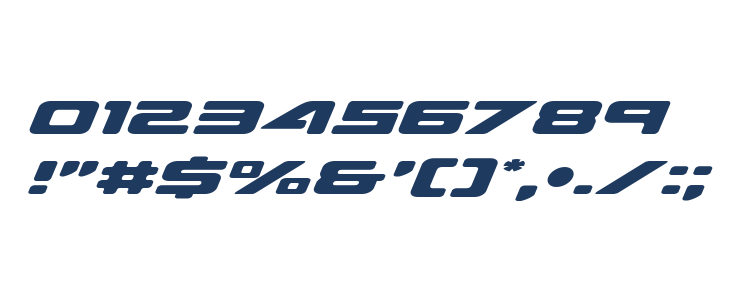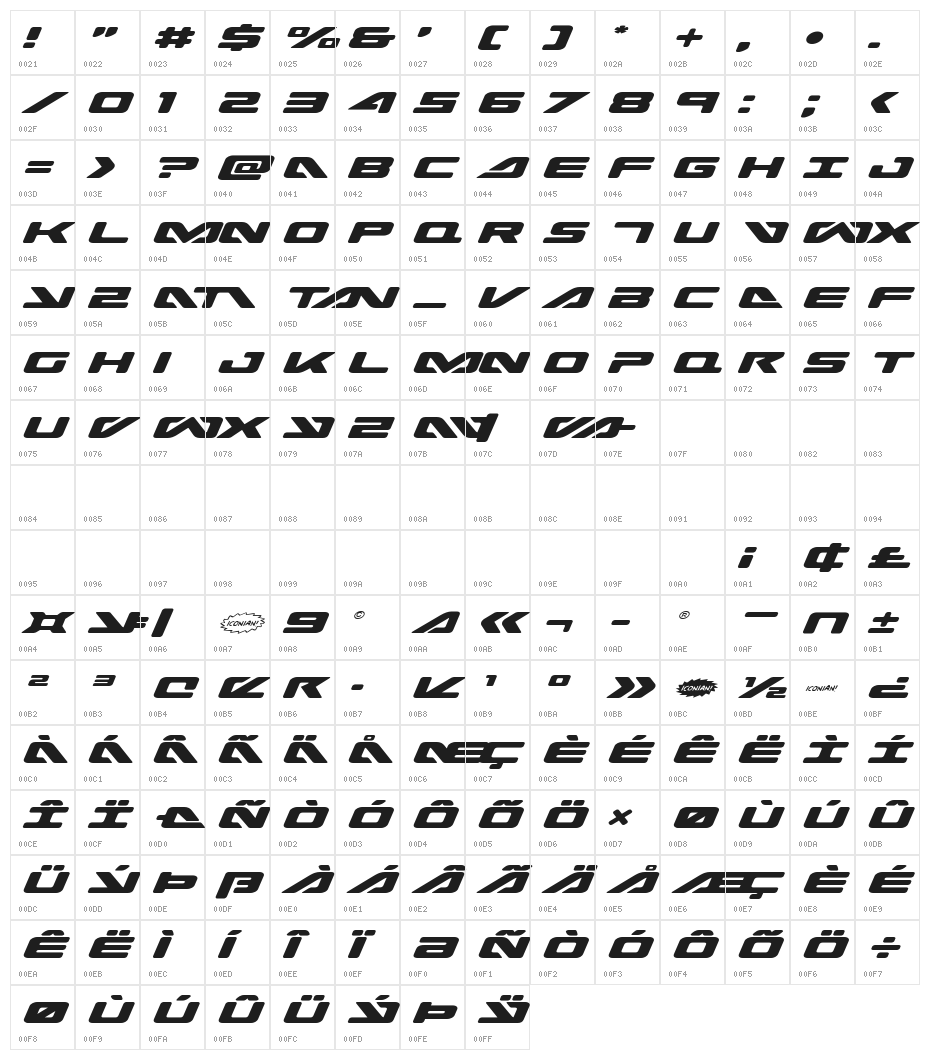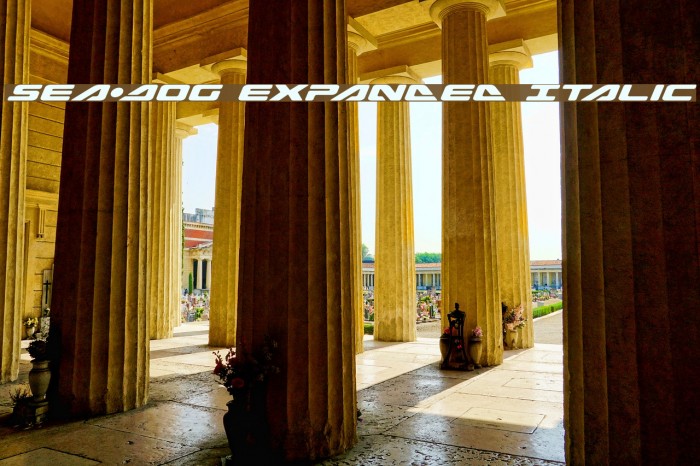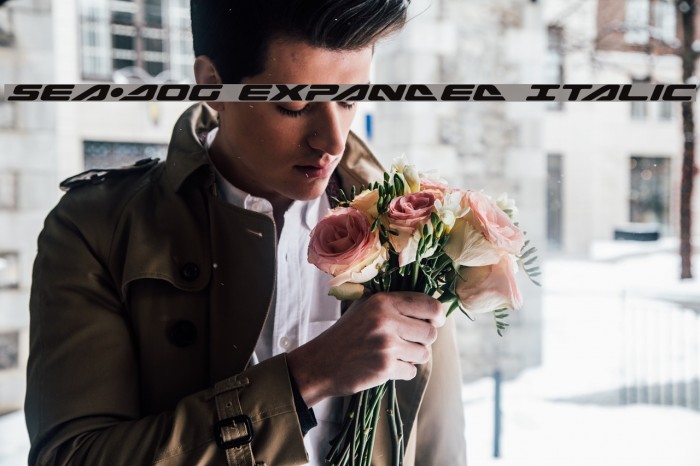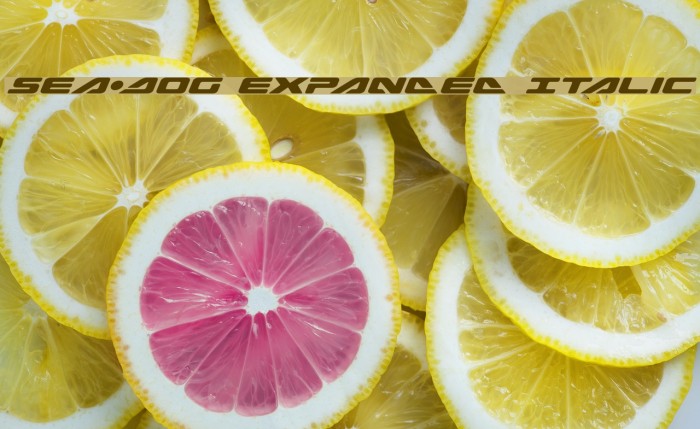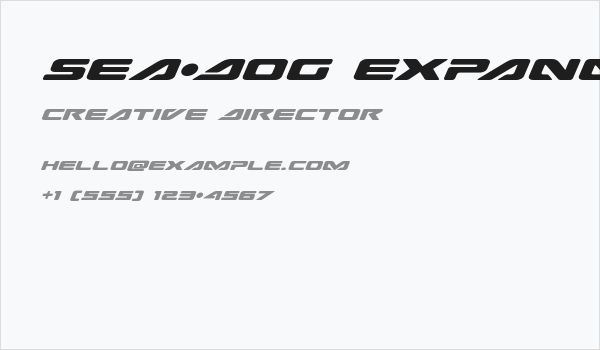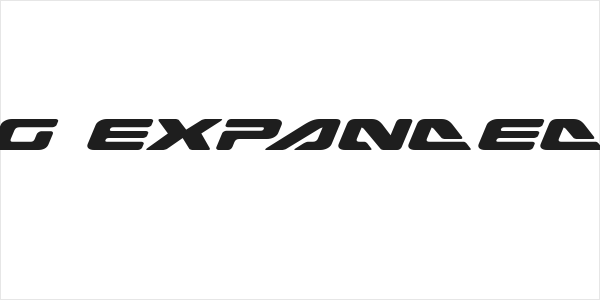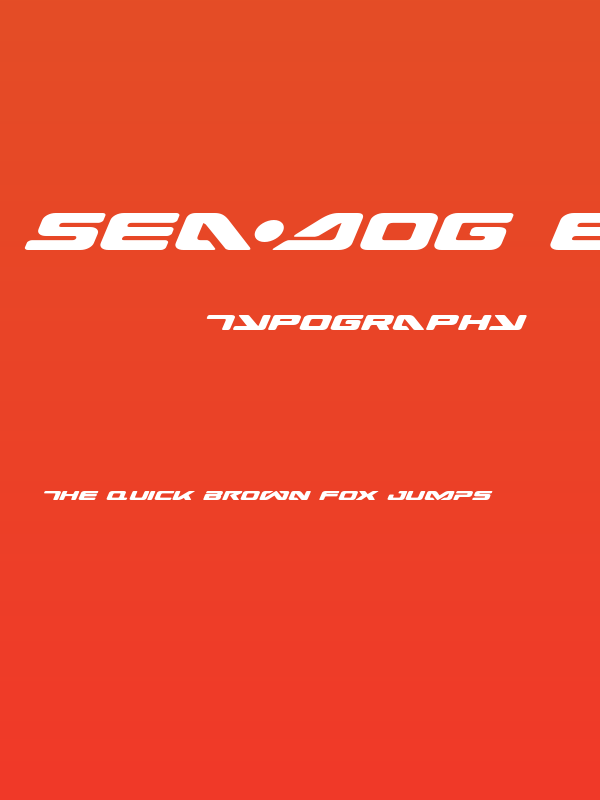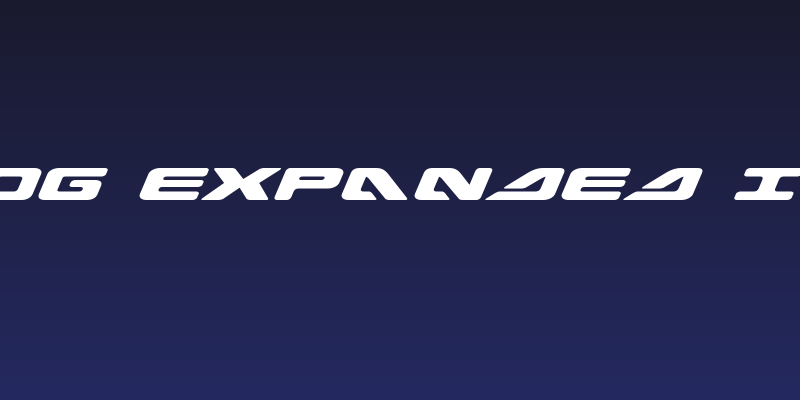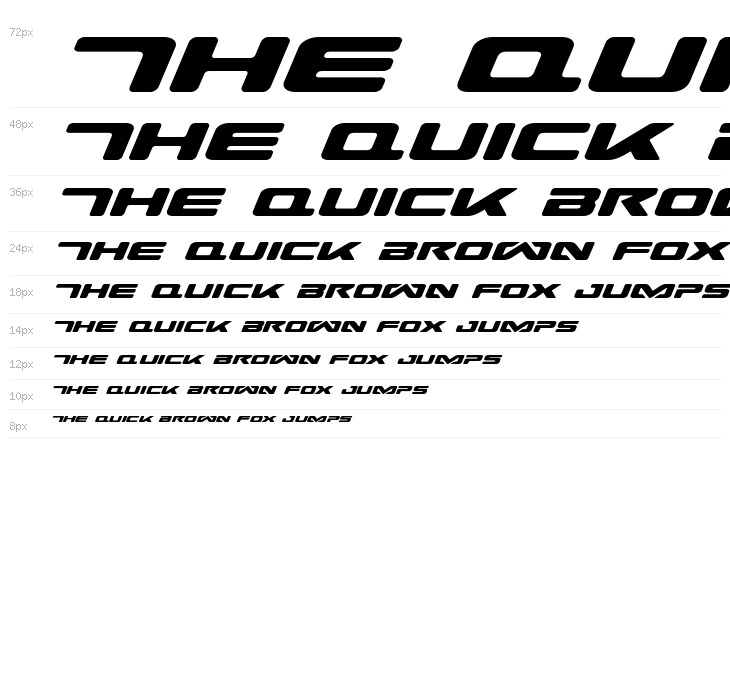
Sea-Dog Expanded Italic Font
Sea-Dog Expanded Italic Description
This font features a bold and futuristic design with a distinct italic slant, giving it a dynamic and forward-moving appearance. The characters are expanded, providing a sense of space and openness. The geometric shapes and sharp angles contribute to a modern and edgy aesthetic, making it suitable for projects that require a strong visual impact. The numbers and special characters maintain the same stylistic elements, ensuring consistency across all glyphs. This font is ideal for use in technology-related designs, sports branding, or any project that aims to convey speed and innovation.
| Proposed Projects | Ideal for technology branding, sports logos, futuristic designs, and dynamic advertising. |